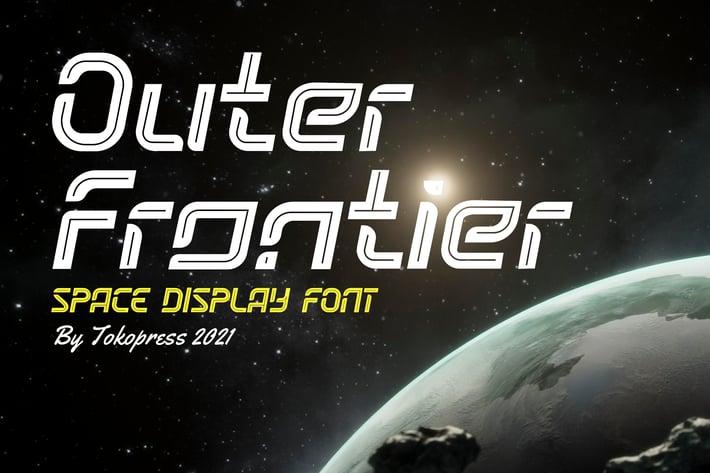
Outer Frontier - Space Font
Outer Frontier - Futuristic Font
Outer Frontier is a futuristic space-themed display typeface with high-contrast strokes, rounded terminals, and a geometric construction that feels both cutting-edge and approachable. With a bold presence and tech-forward vibe, its expressive curves and angular rhythm make it ideal for contemporary media—from space posters to gaming dashboards. Whether you're designing for digital gadgets or crafting sci-fi event flyers, this font's personality shines.
The letterforms feel engineered yet human, giving it a unique identity for projects that demand attention. Its dynamic style and visual rhythm reflect modern tech branding, youth fashion, or space-themed storytelling.
Perfectly suited for tech branding, editorial posters, gaming interfaces, or futuristic packaging, Outer Frontier evokes innovation and energy. Its unique aesthetic gives your work a high-impact look—ideal for startups, music events, or product launches targeting Gen-Z and digital-native audiences.
This font helps creators build standout identities—whether for digital apps, fashion lookbooks, or eye-catching motion graphics.
Key Features
Why Designers Love Outer Frontier :
✅ Eye-catching style with a futuristic, clean edge
✅ Distinct character shapes for high legibility and brand recognition
✅ Well-balanced spacing ideal for both large headlines and editorial layouts
✅ Space-themed influence blended with modern tech appeal
✅ Perfect for UI design, logos, book covers, and product labels